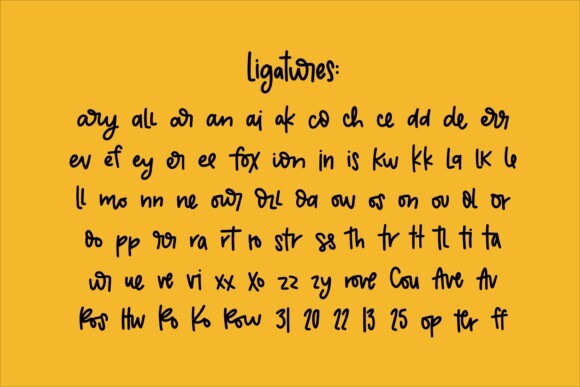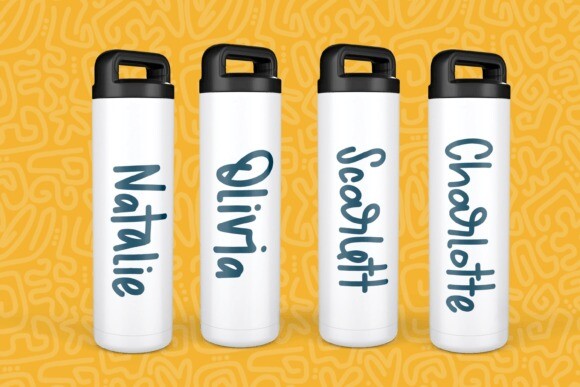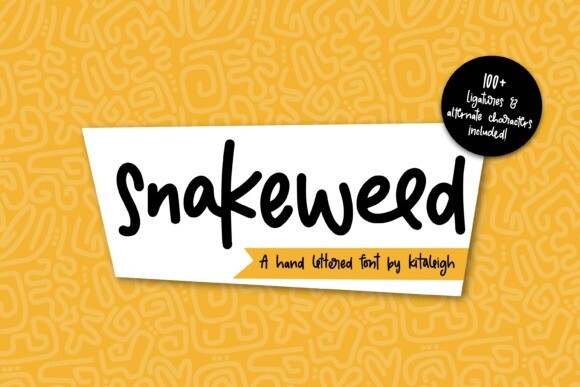
Snakeweed Font
Designer: kitaleigh
Snakeweed Font is a playful and hand-lettered font that exudes personality and versatility. Perfect for projects needing a touch of whimsy or casual style, this font boasts over 100 ligatures and alternate characters, making it ideal for creating dynamic and custom looks. Whether used for branding, logos, invitations, or playful merchandise, Snakeweed’s relaxed and bold letterforms bring a unique charm to any design. With its extensive language support and playful alternates, it’s a must-have for designers looking to infuse their projects with warmth and creativity.